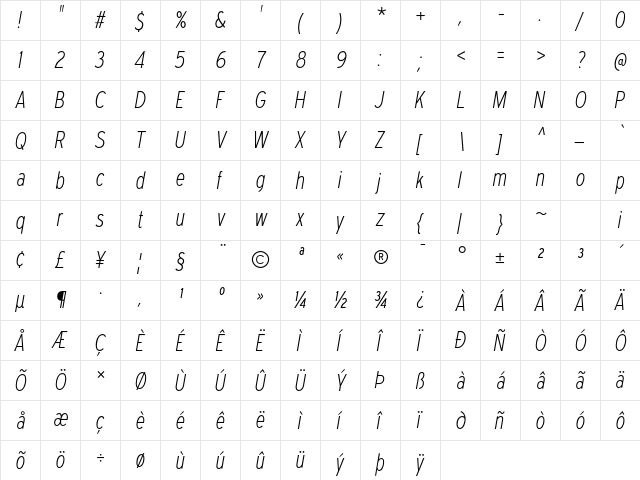
Expressway Cd Xl Italic Font Preview
Expressway Cd Xl Italic
Design Context for Expressway Cd Xl Typeface
Expressway Cd Xl is a composed and adaptable typeface that performs quietly and consistently across a wide range of design contexts. Its italic angle brings a sense of urgency and motion to the letterforms.
Pro Tip: Use Expressway Cd Xl for emphasis, pull quotes, and subheadings where its slanted energy can add rhythm to the layout.